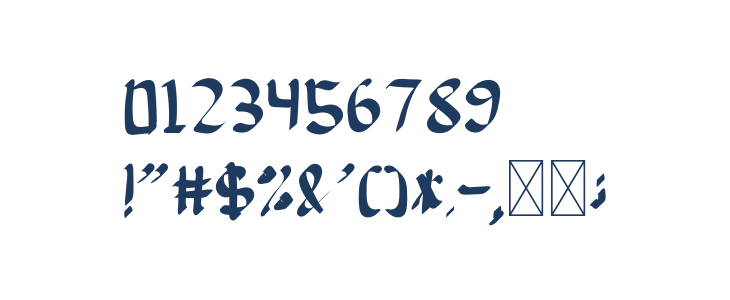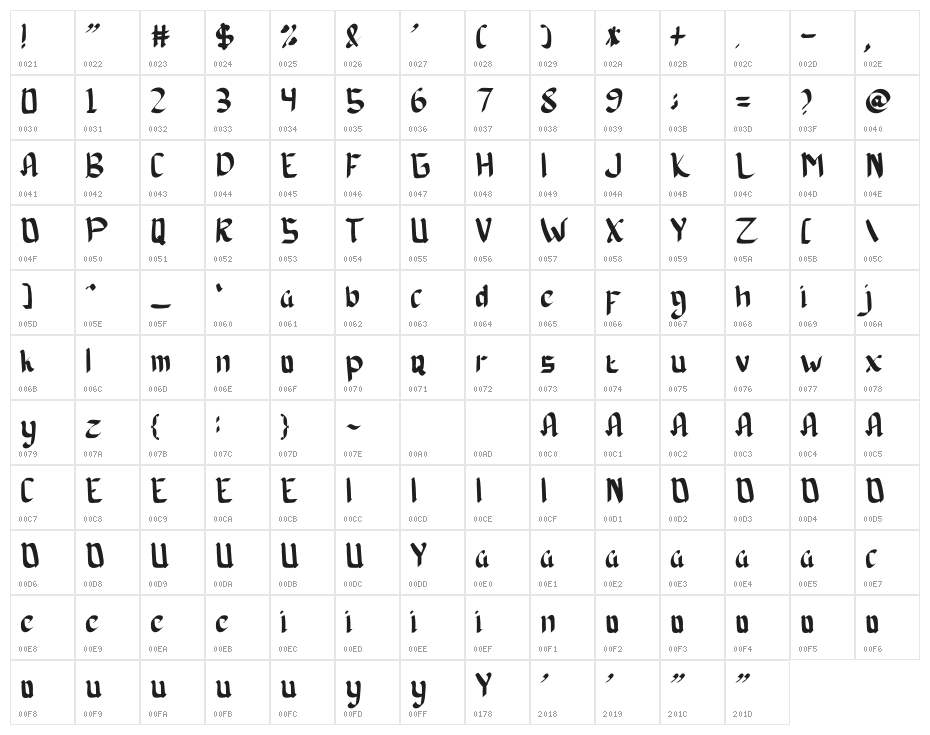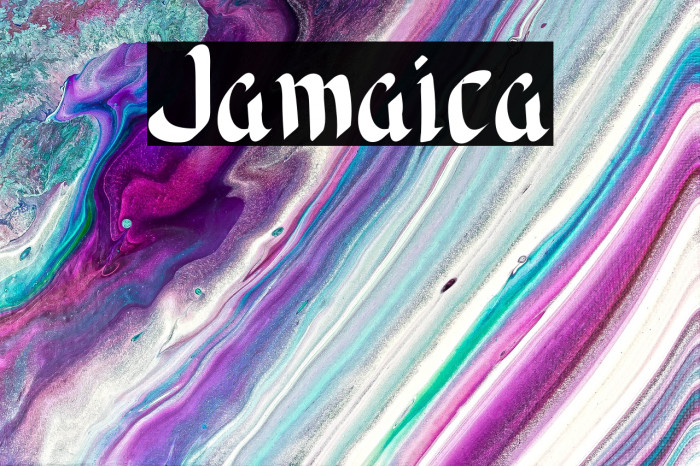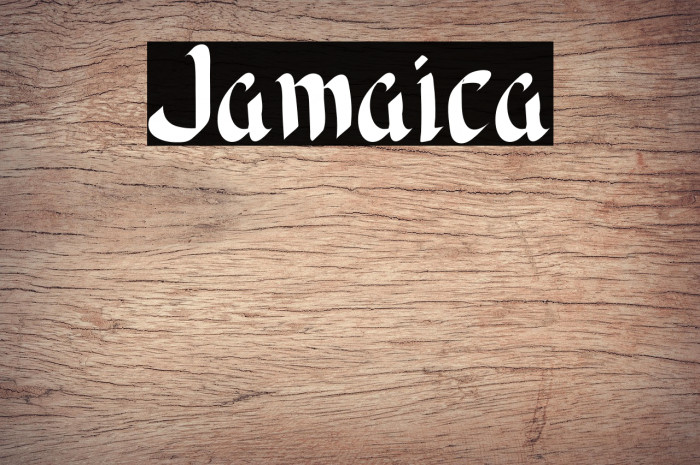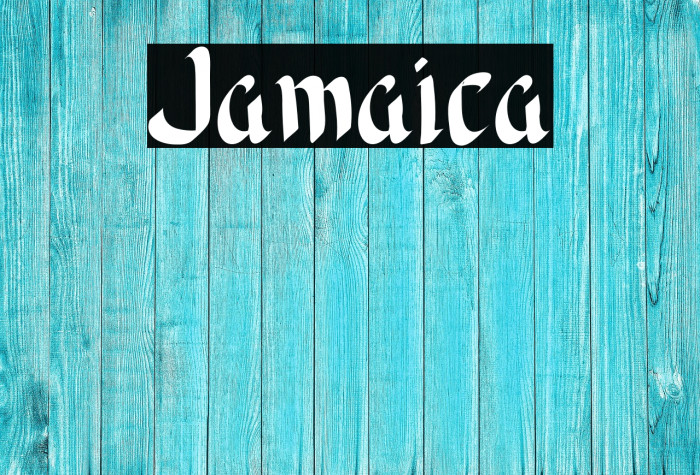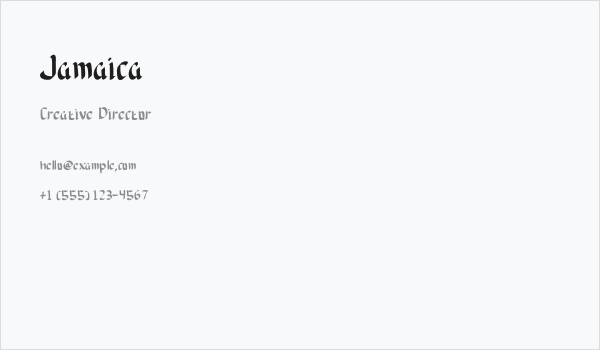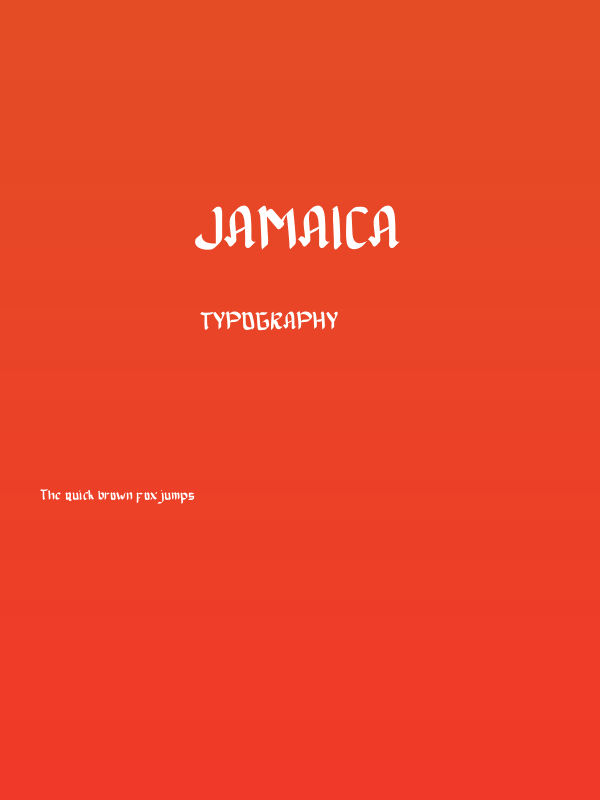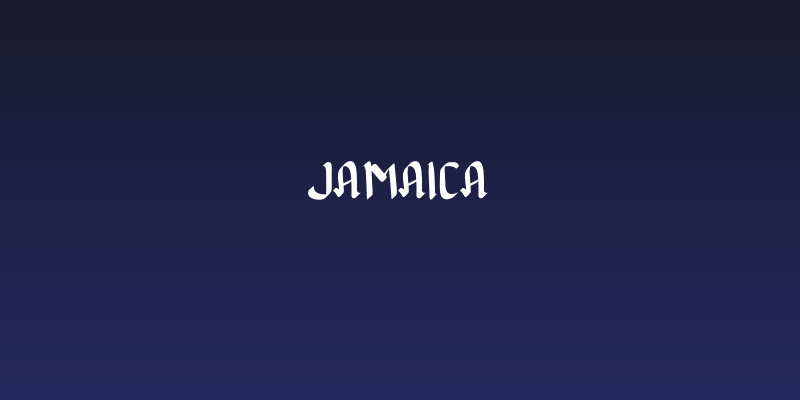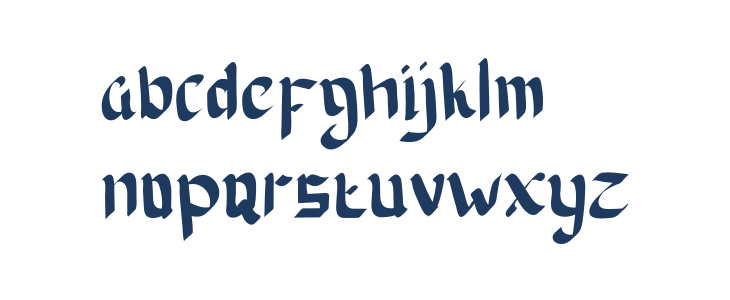
This font exhibits a bold and striking blackletter style, characterized by its sharp, angular lines and dramatic flourishes. The uppercase letters are particularly ornate, with strong vertical strokes and pointed serifs that give a sense of historical gravitas. The lowercase letters maintain the same angularity but are slightly more subdued, allowing for legibility while retaining the overall gothic aesthetic. Numbers are robust and consistent with the letterforms, ensuring a cohesive look across all characters. Special characters are designed with the same attention to detail, making them suitable for decorative purposes. This font is ideal for projects that require a touch of medieval or traditional elegance.
| Proposed Projects | Suitable for historical documents, wedding invitations, book covers, and branding that requires a traditional or gothic touch. |